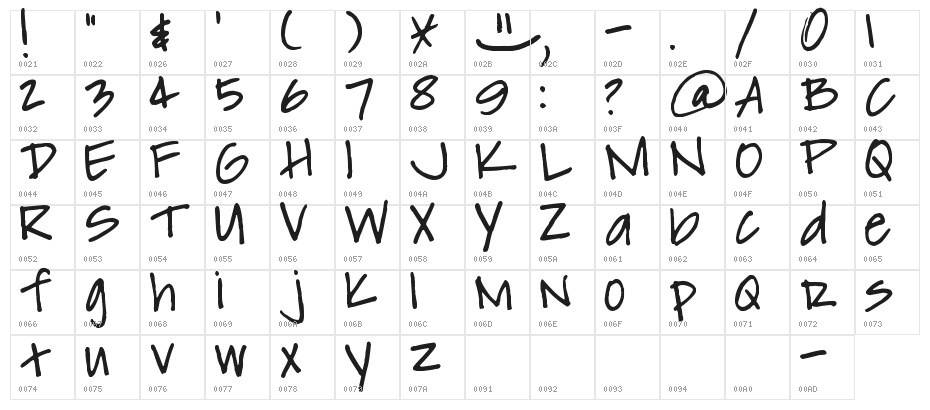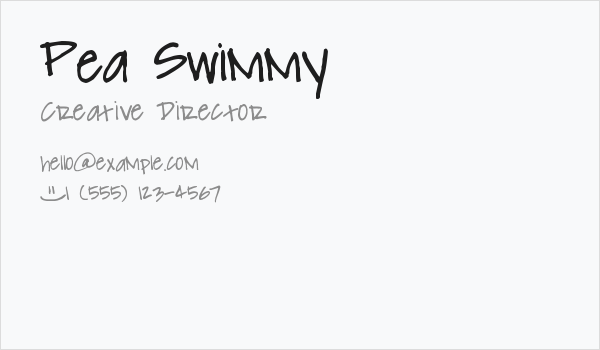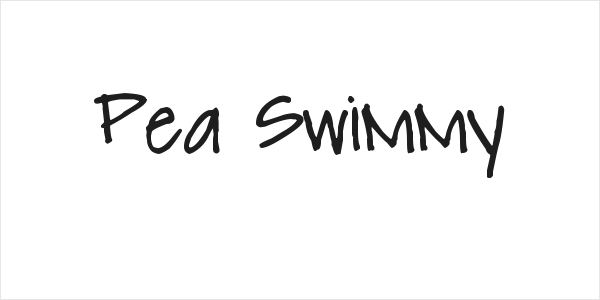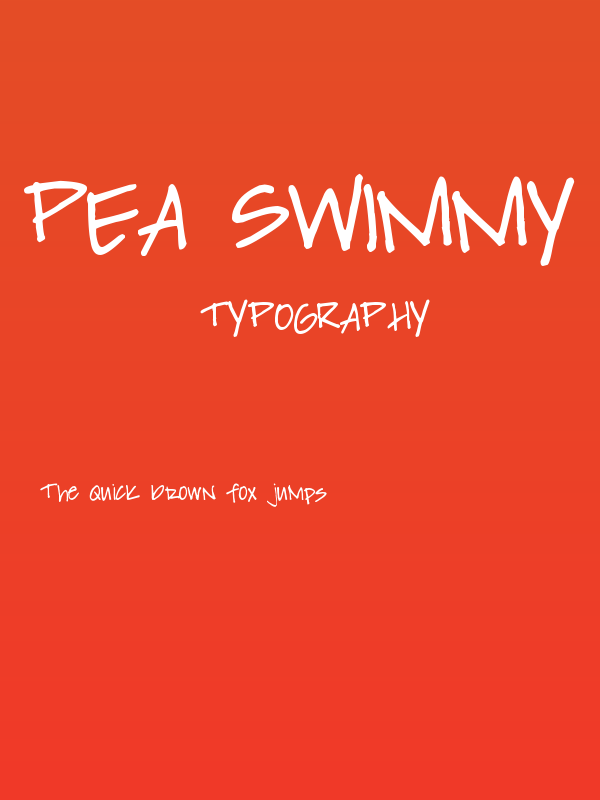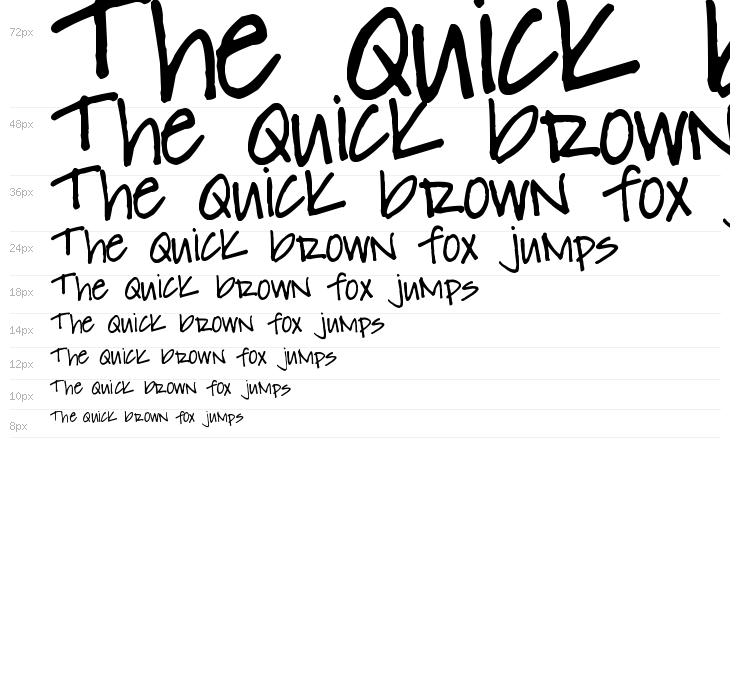
Pea Swimmy Font
Pea Swimmy Description
This font exhibits a playful and casual handwritten style, characterized by its uneven strokes and slightly irregular letterforms. The letters have a dynamic and energetic appearance, with varying stroke widths that add to its informal charm. The uppercase and lowercase letters maintain a consistent style, while the numerals and special characters complement the overall aesthetic. This font's organic and spontaneous look makes it ideal for projects that require a personal touch or a relaxed vibe.
| Use Case | Logos, Headlines, Informal Text |
| Proposed Projects | Ideal for greeting cards, personal blogs, casual invitations, and playful branding. |